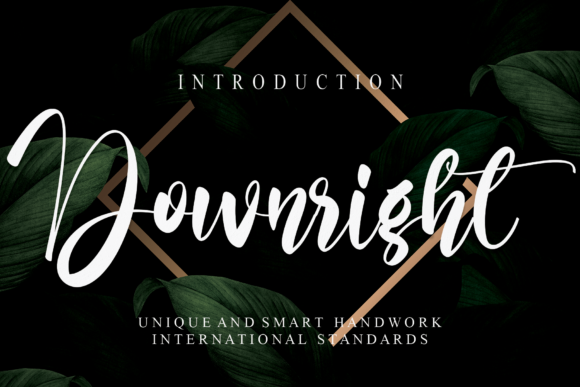
Enter the realm of Downright Font - a script font that weaves a timeless narrative with its graceful strokes and captivating charm. This masterpiece, crafted by the visionary minds at Misterletter.co, is more than just a font; it's an invitation to explore the boundless realms of creativity.
With its meticulously crafted curves and elegant lines, Downright Font possesses an alluring personality that instantly captures the hearts of designers and typography enthusiasts alike. It's a font that speaks volumes, effortlessly elevating your designs with a touch of sophistication and artistry.
Journey into the depths of Downright Font's versatility, where endless possibilities await. Whether you're crafting heartfelt greeting cards, unleashing your inner artist in kids' crafts, or seeking to ignite passion in your branding, this script font is your steadfast companion. Its adaptability knows no bounds, seamlessly blending into diverse projects, each infused with a unique charm.
Indulge in the sensory experience that Downright Font offers. Its delicate strokes evoke a sense of nostalgia, transporting you to an era of handwritten letters and heartfelt messages. Each character feels like a personal touch, adding a layer of authenticity and warmth to your designs.
Step into the spotlight with Downright Font, the ultimate choice for sports logos. Its dynamic and energetic vibe perfectly captures the essence of athleticism and competition. From sleek and modern designs to bold and impactful statements, Downright Font propels your sports branding to new heights, ensuring you leave an indelible mark on the world of sports.